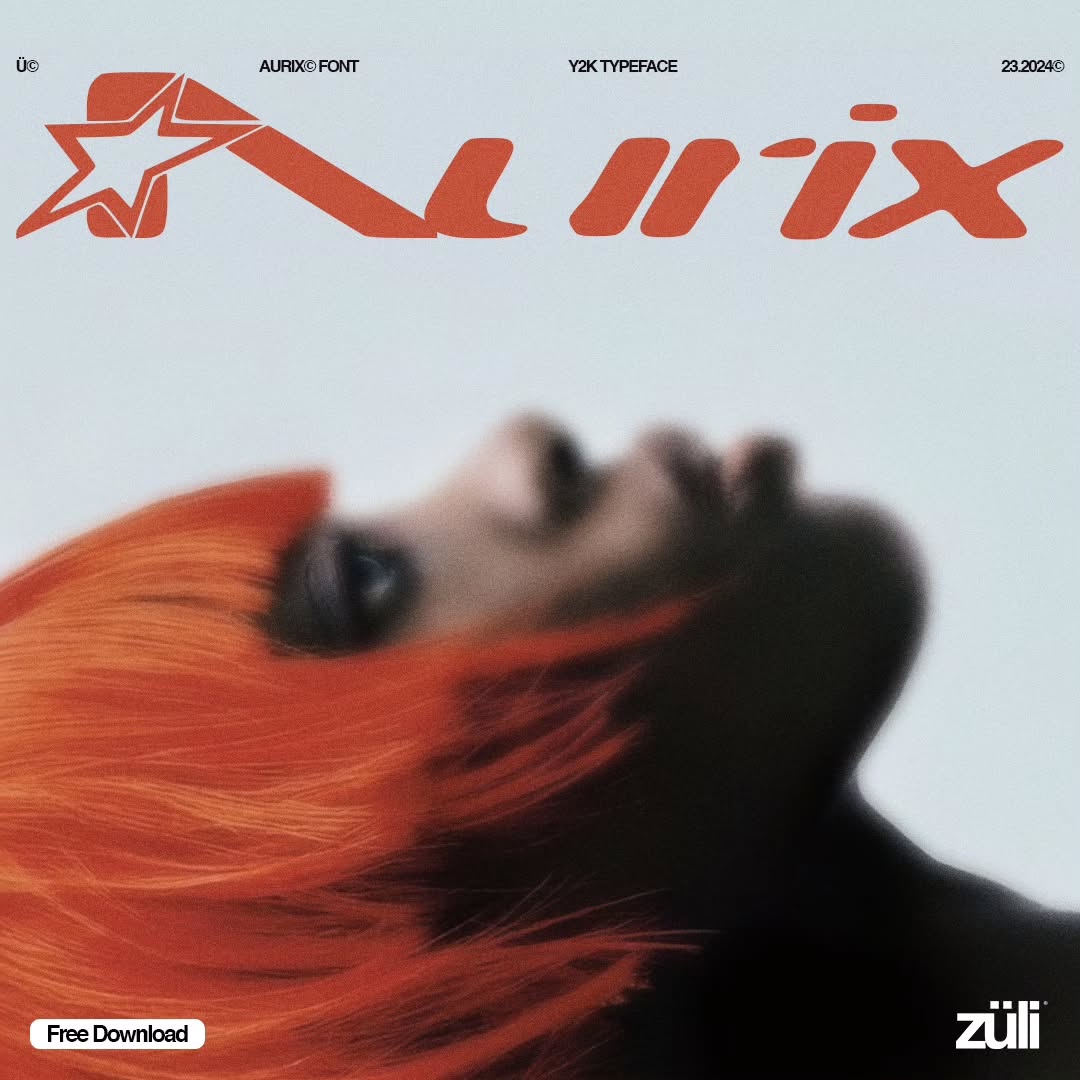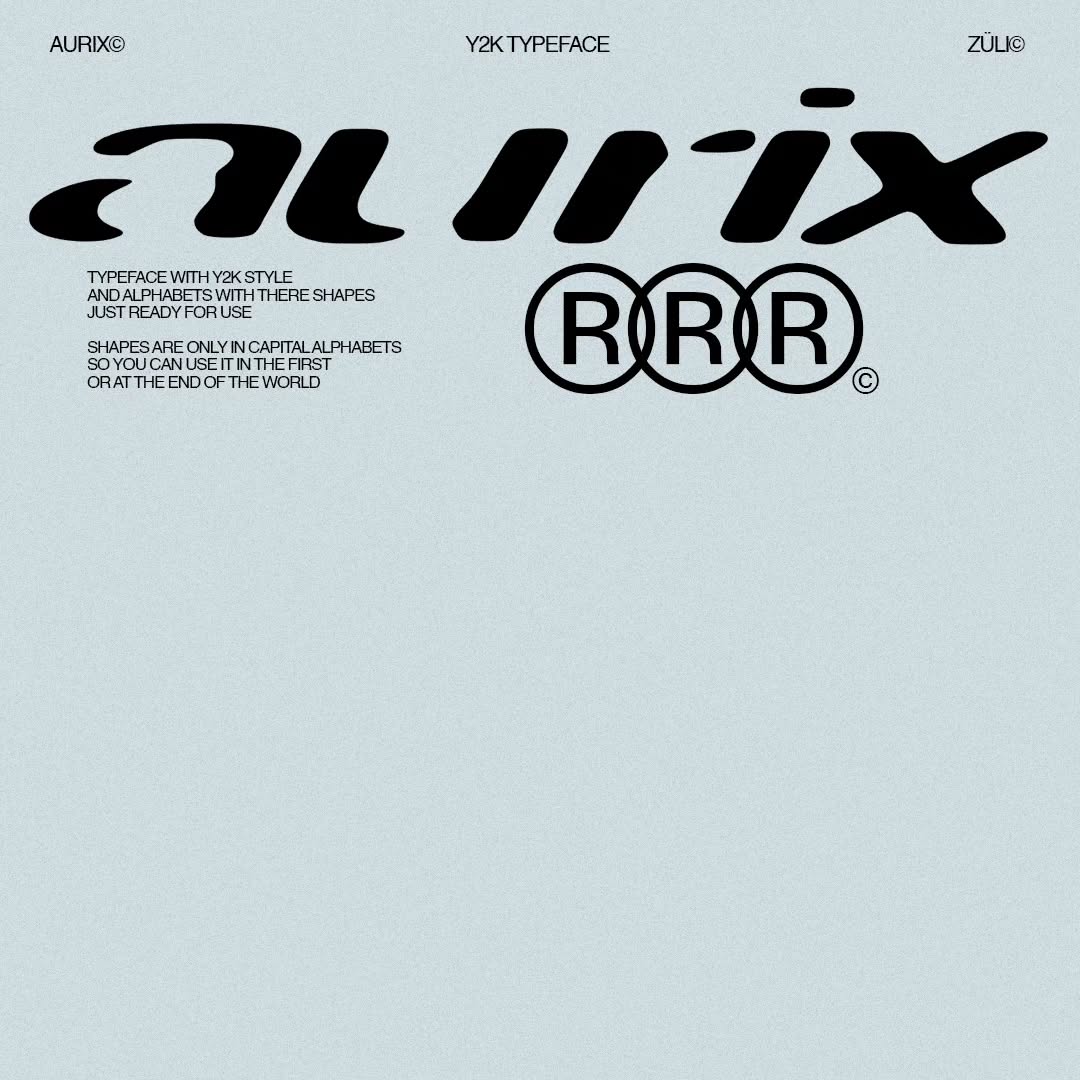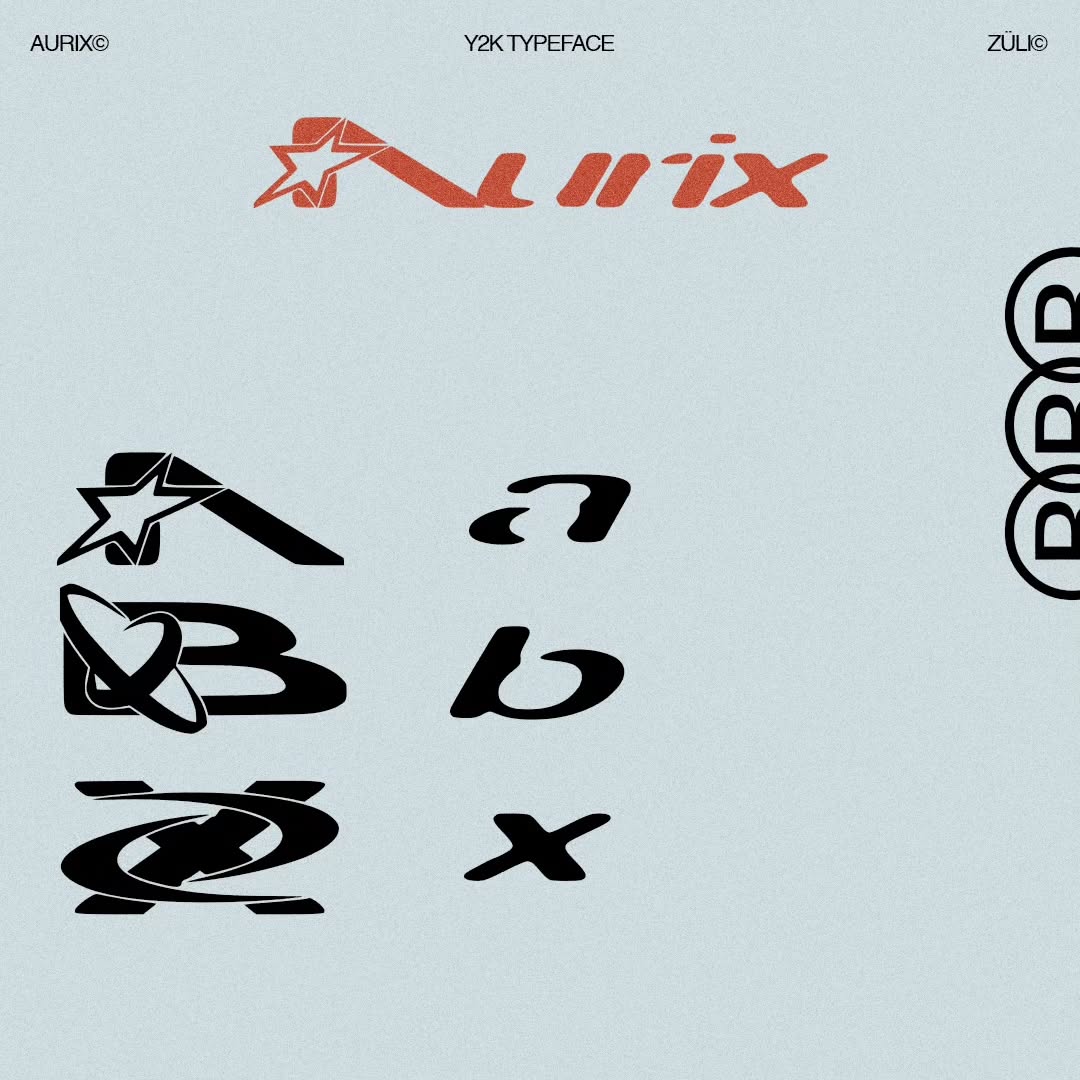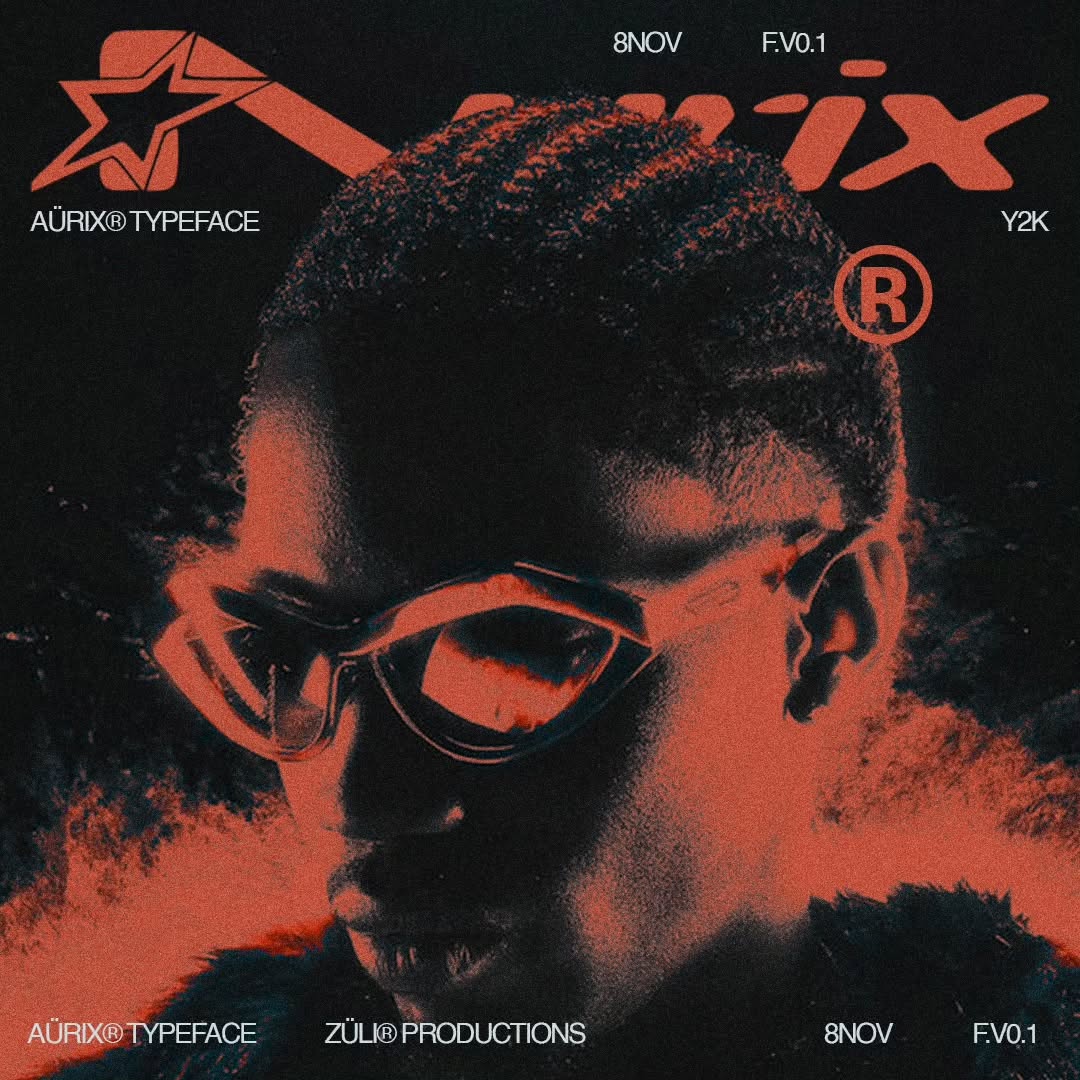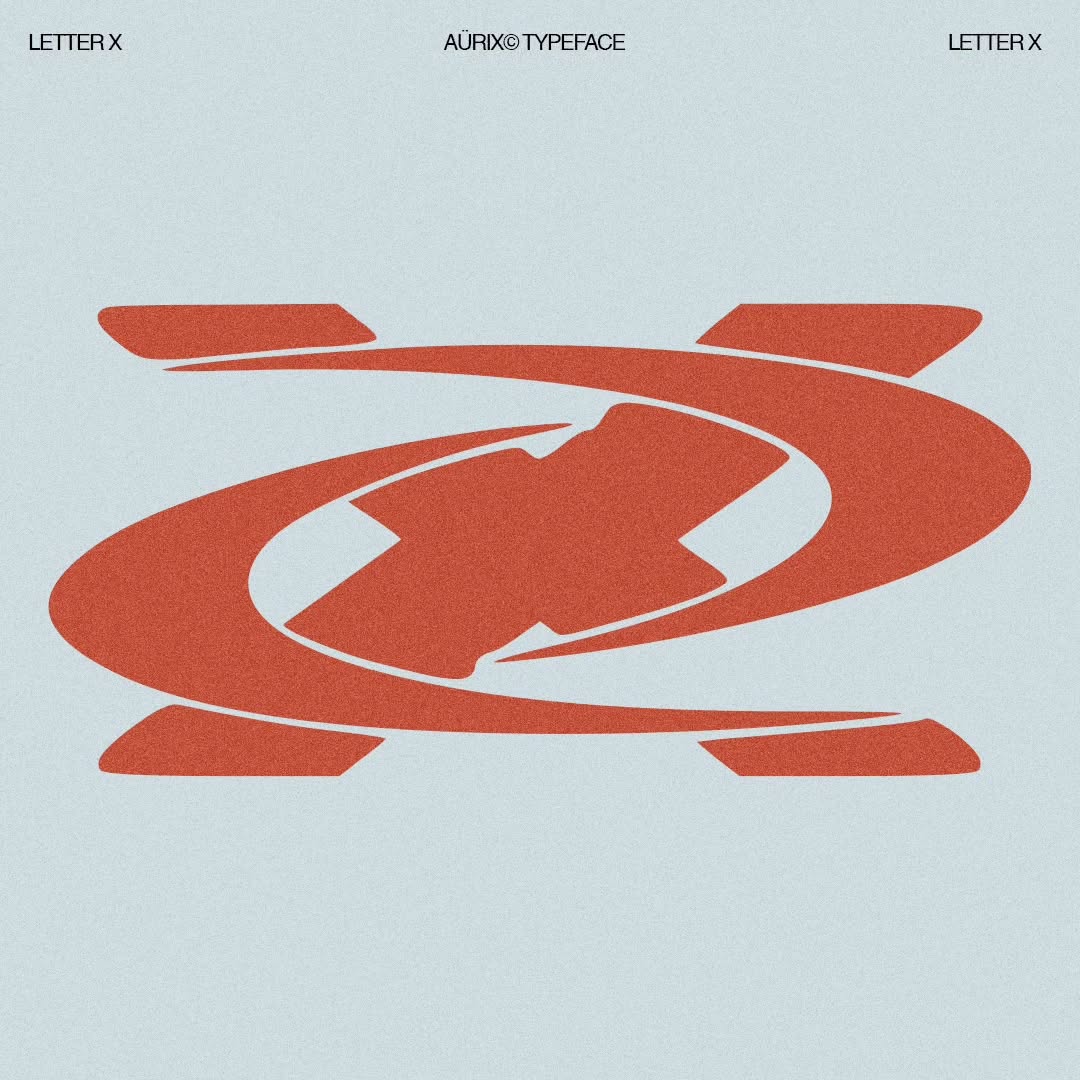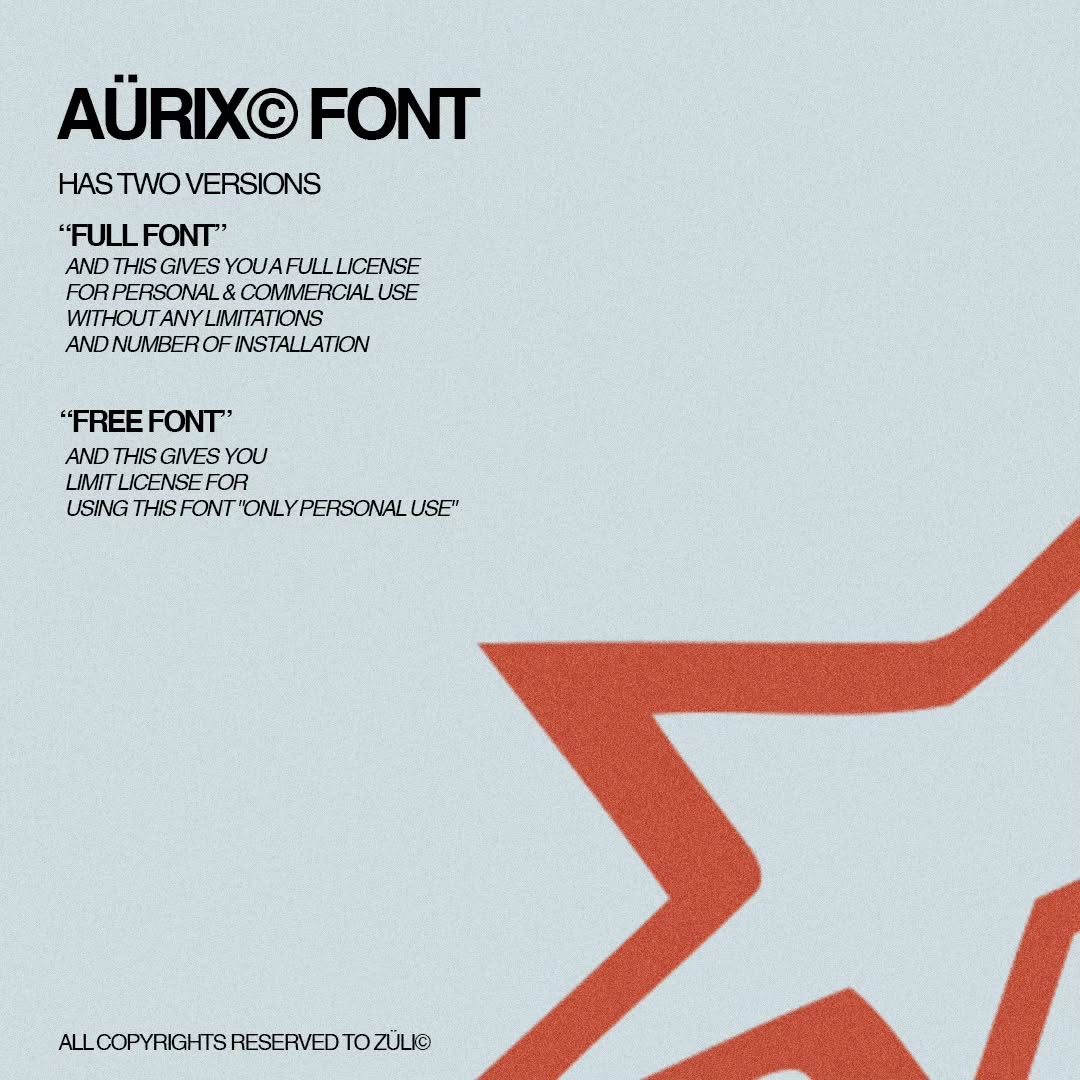
Explore the captivating world of Y2K aesthetics with Aürix , a font designed to transform your designs into memorable works. Aürix is an ideal choice for designers looking to incorporate modern and retro shapes into their projects, offering ease of use and flexibility for all visual creations.
Police Features:
• Authentic Y2k Style : The capital letters feature unique shapes inspired by the Y2k aesthetic, ready to be incorporated directly into your designs.
• Versatility guaranteed : Compatible with all types of designs, whether modern, retro or experimental.